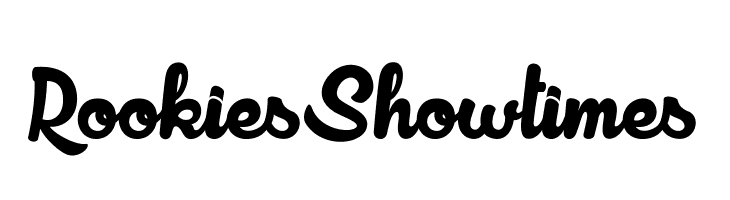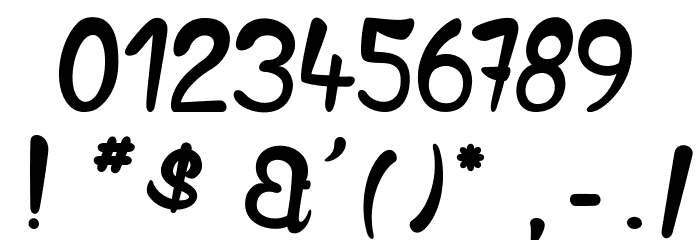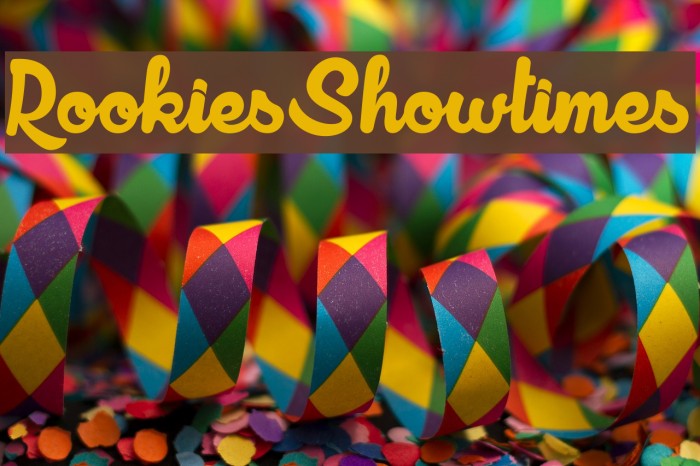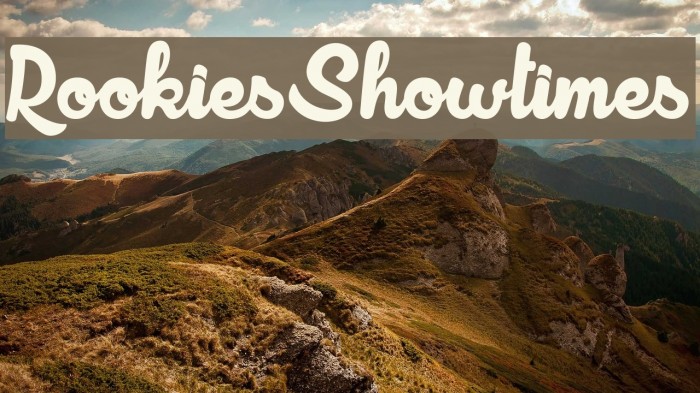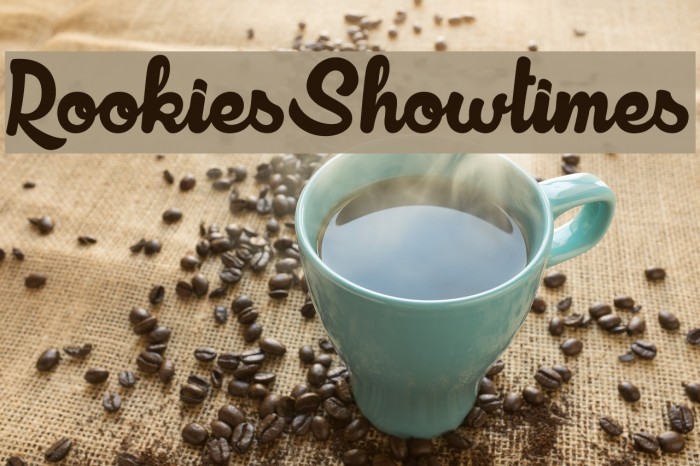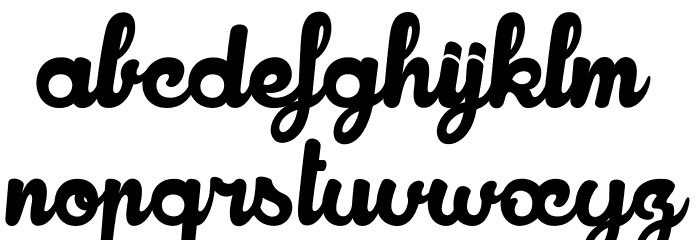
RookiesShowtimes Font
RookiesShowtimes Description
This font features a bold and dynamic script style, characterized by its flowing, cursive letters that exude a sense of movement and energy. The uppercase letters are slightly more formal, with a consistent stroke width that adds to their legibility. The lowercase letters are more playful, with loops and curves that give them a handwritten feel. The numerals are clear and bold, maintaining the overall style of the font. Special characters are included, matching the font's energetic and lively aesthetic. This font is perfect for projects that require a touch of personality and flair.
A bold, dynamic script font with a lively, handwritten feel from Uncategorized fonts.
- Proposed Projects: Ideal for branding, posters, invitations, and any design needing a personal touch.